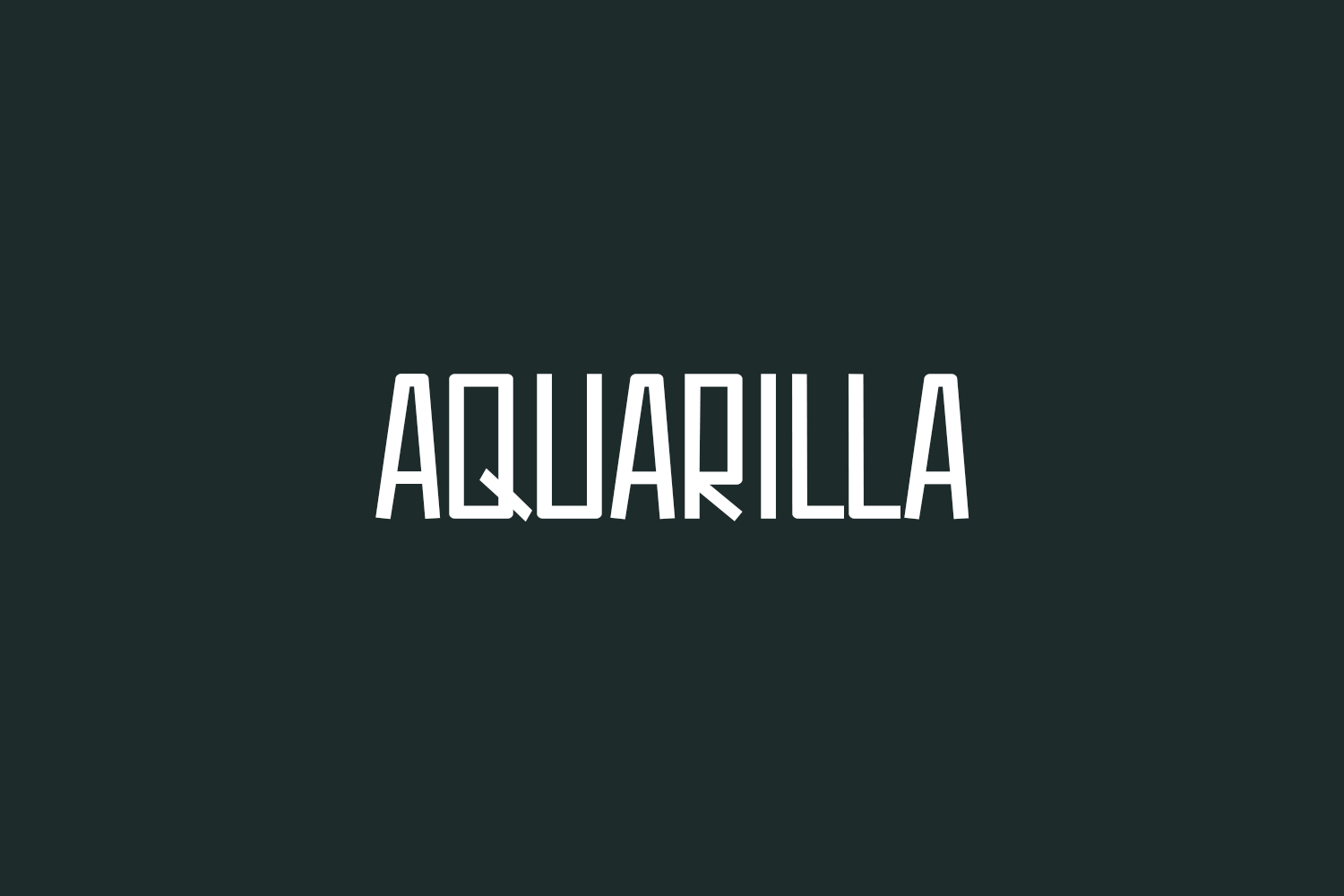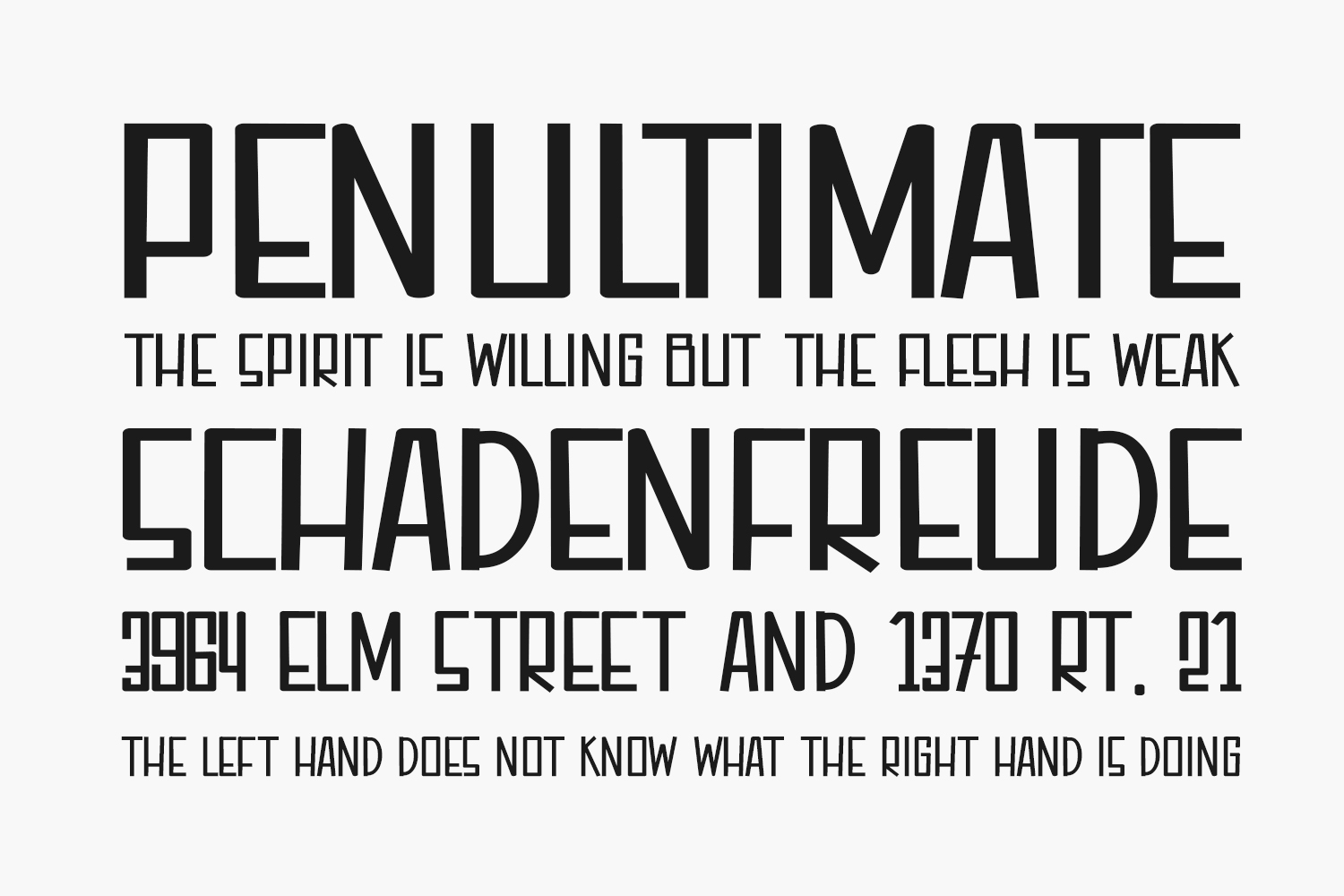
Aquarilla Free Font is a sweet and friendly sans serif font. Its natural and clean style makes it incredibly fitting to a large pool of designs. This original look will appeal to a wide range of crafty ideas, from letterheads and titles to stationery. Aquarilla Free Font was designed by Supersemar Letter and is free for personal use only. Please purchase the full version for commercial use.